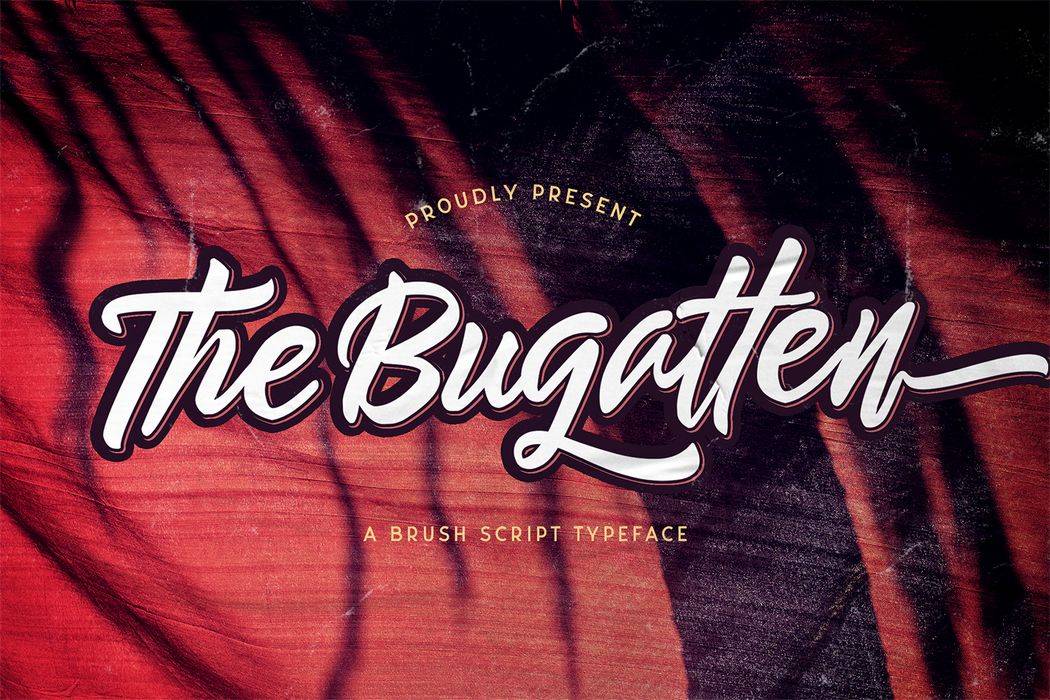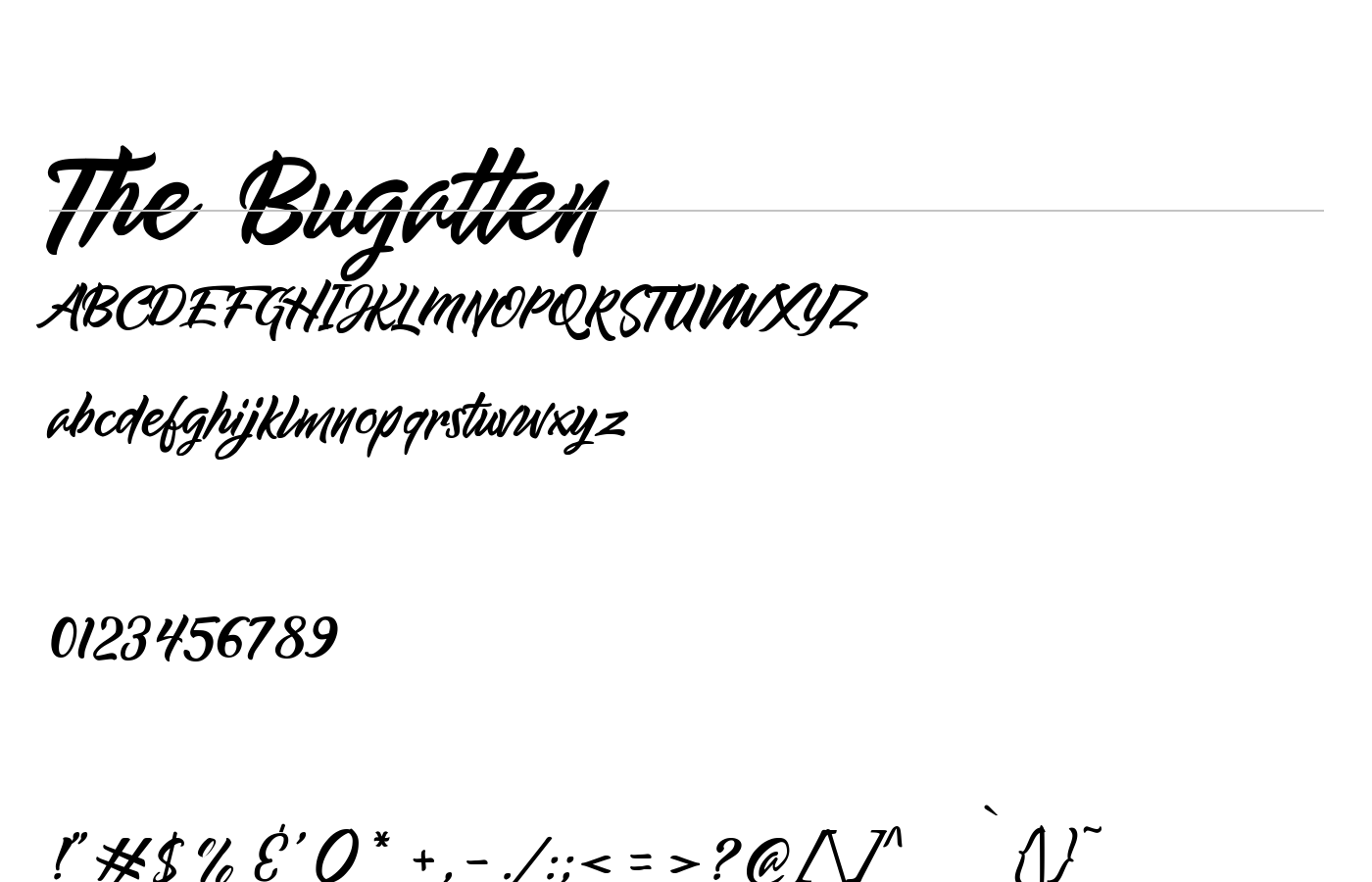
The Bugatten is a lively script font with a bold, energetic style that combines smooth, flowing strokes with a casual handwritten feel. Its distinct, slightly condensed letterforms and moderate contrast make it perfect for adding a dynamic and personal touch to branding, logos, and creative headlines. This font works especially well where a sense of style and personality is desired, such as fashion, lifestyle, and artistic projects.
The Bugatten Font
About The Bugatten Font